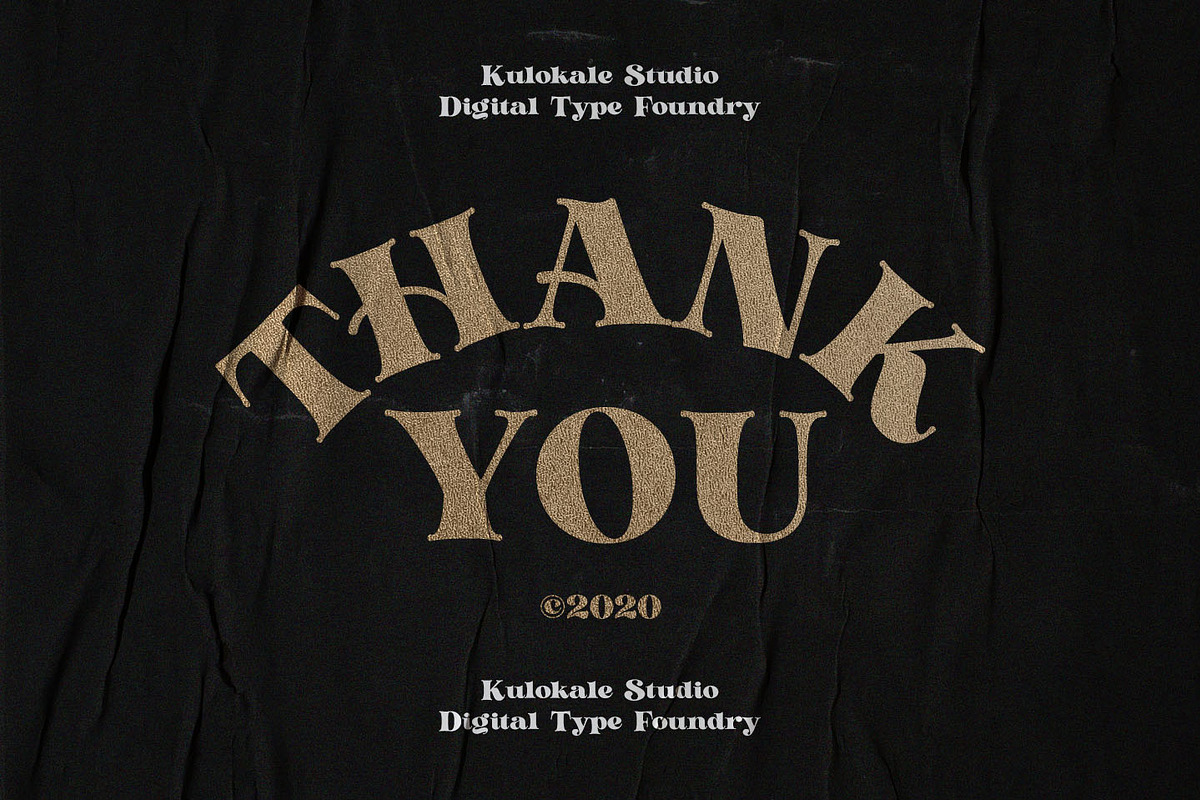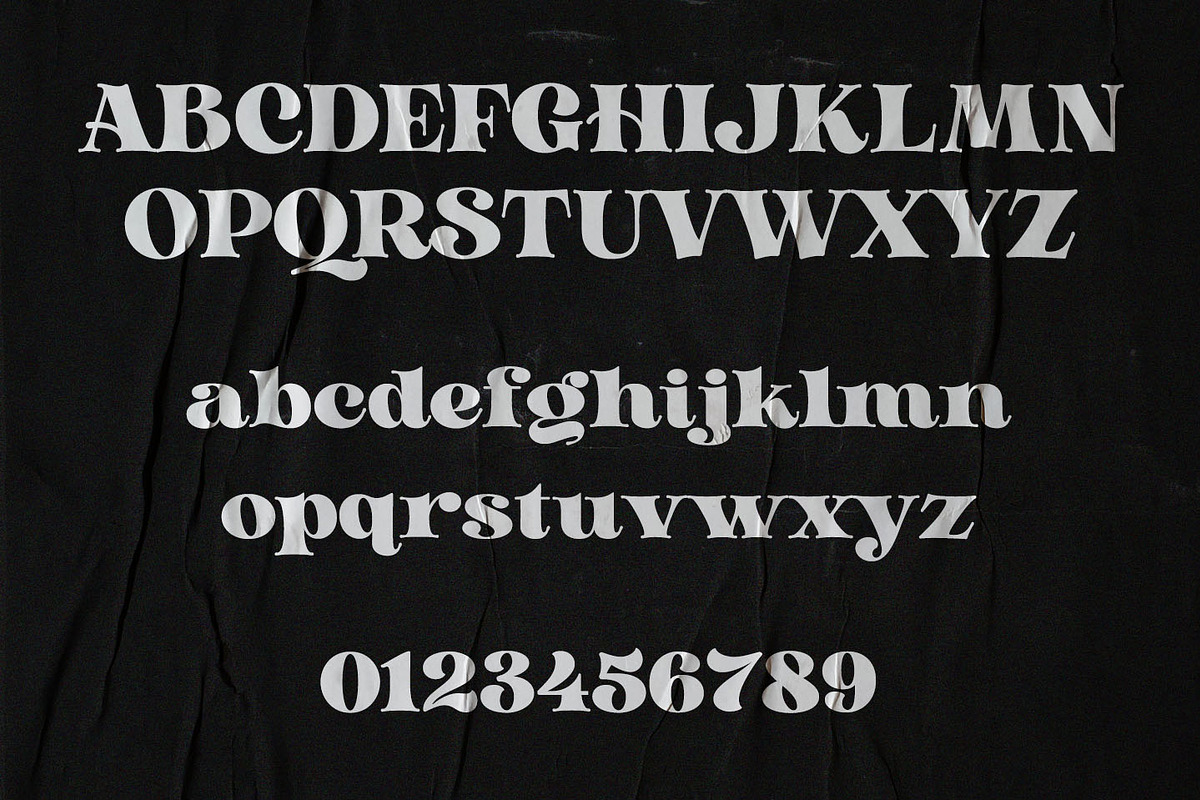
Golden Metafor - Classy Bold Serif
Thanks for checking out Golden Metafor Font! Classy Bold serif font with beautiful characters and also ligature which makes it easy for you to create a logo for your personal branding and your business beautifully.
Golden Metafor is perfect for many different projects such as logos & branding, invitation, stationery, wedding designs, social media posts, advertisements, printed quotes, product packaging, product designs, label, photography, watermark, special events or anything.
- Golden Metafor includes Capital and Lowercase letters, Alternates, and Ligatures
- Numbers + punctuation
- Foreign language support